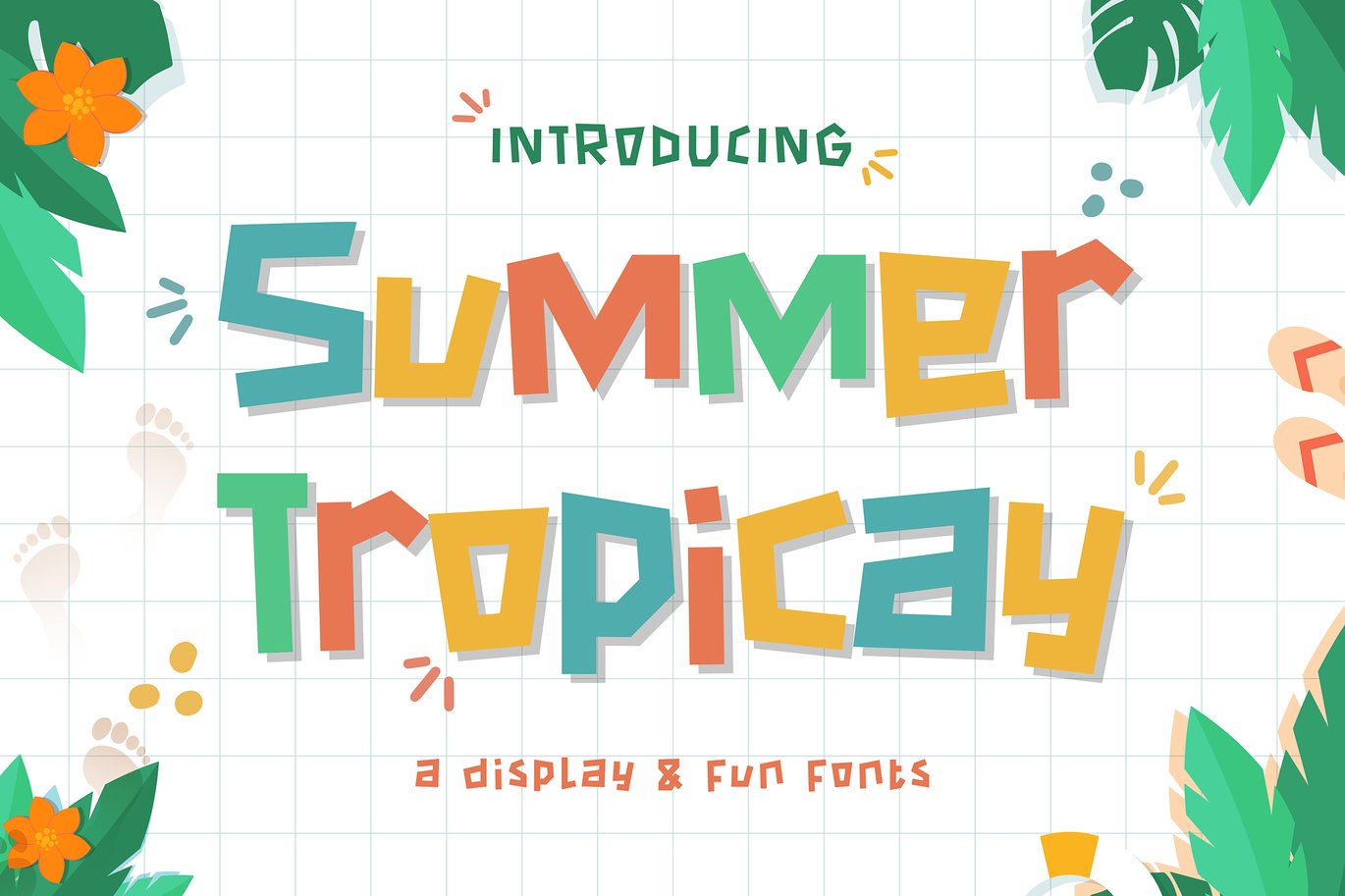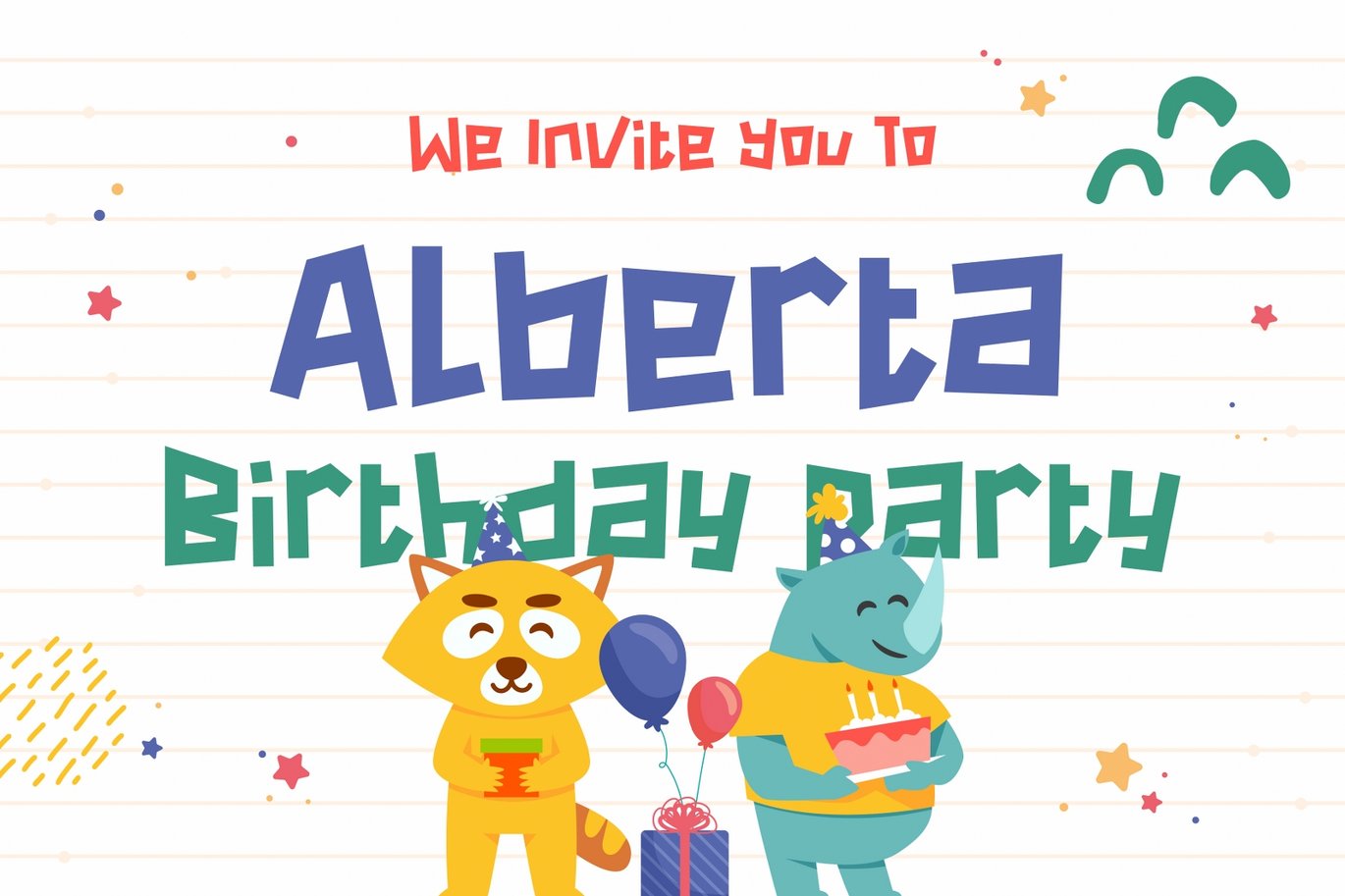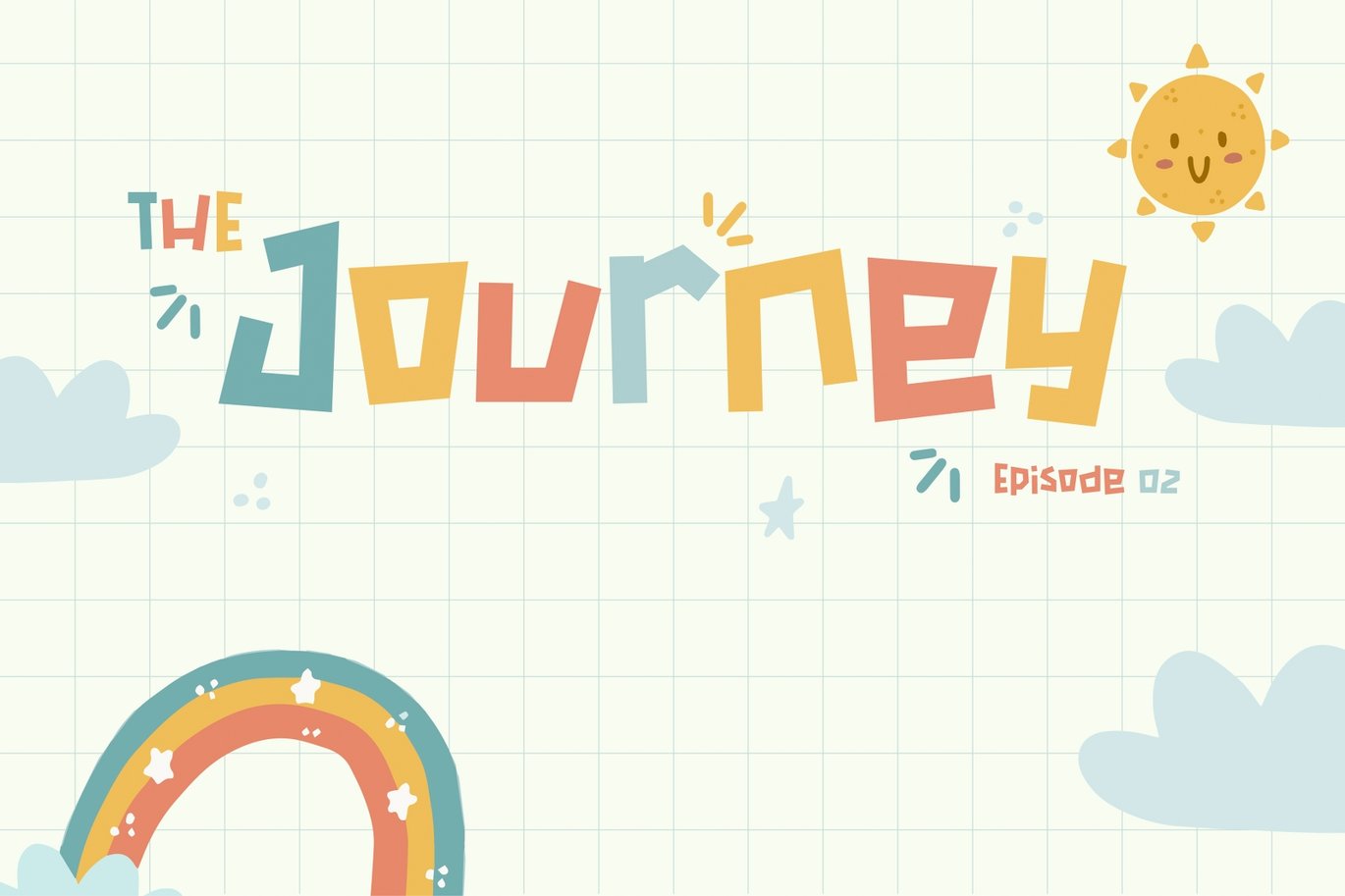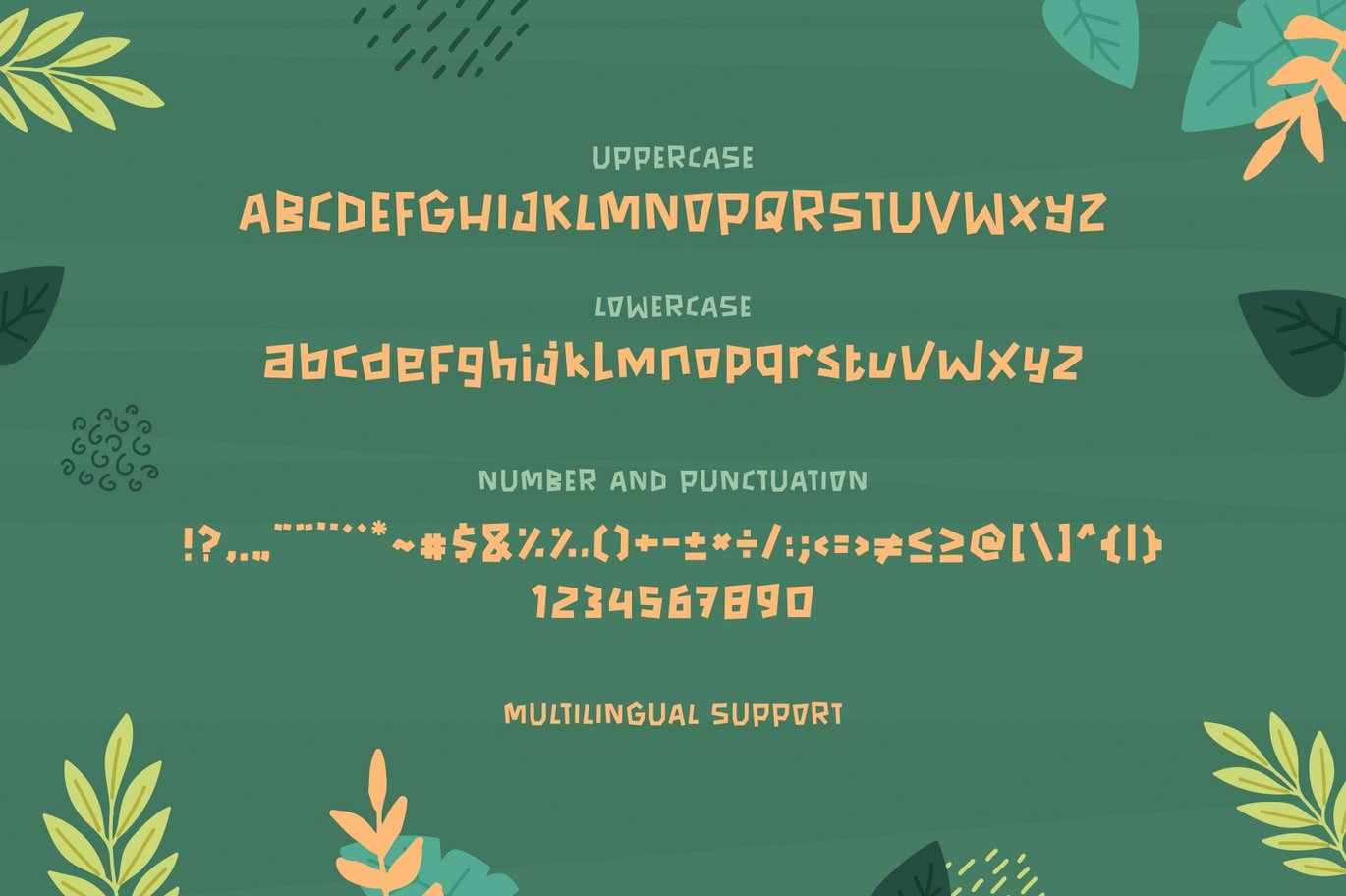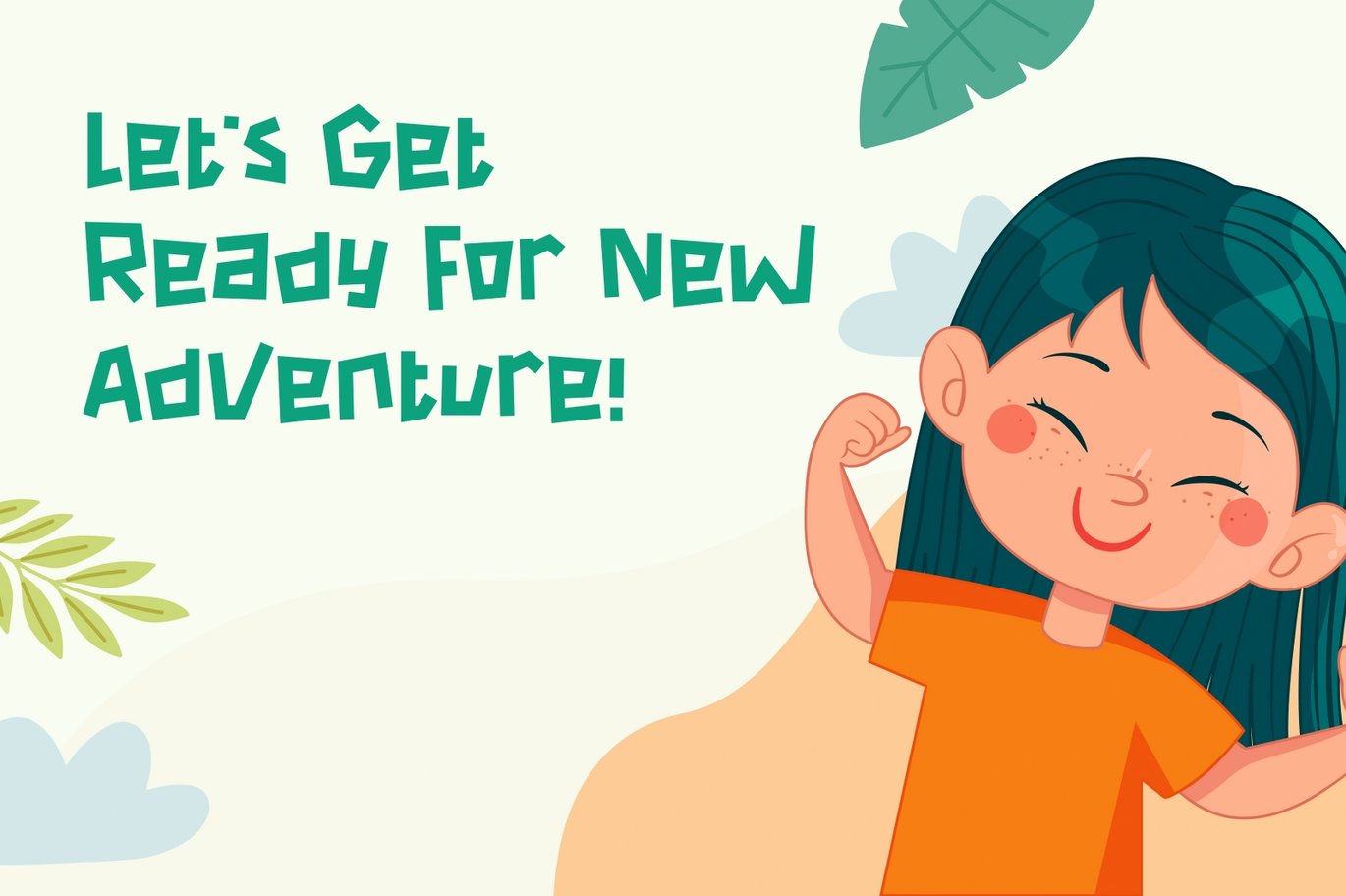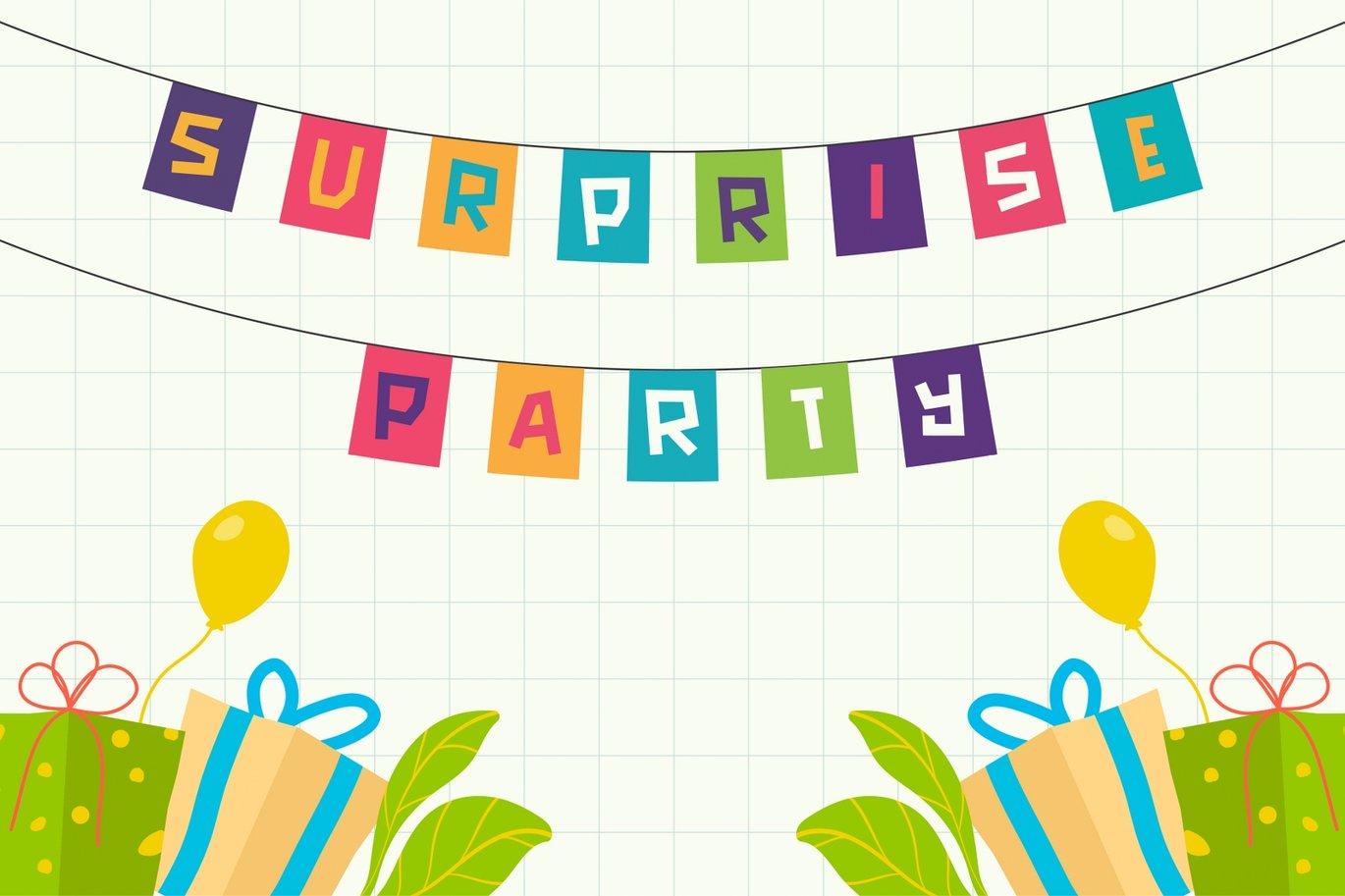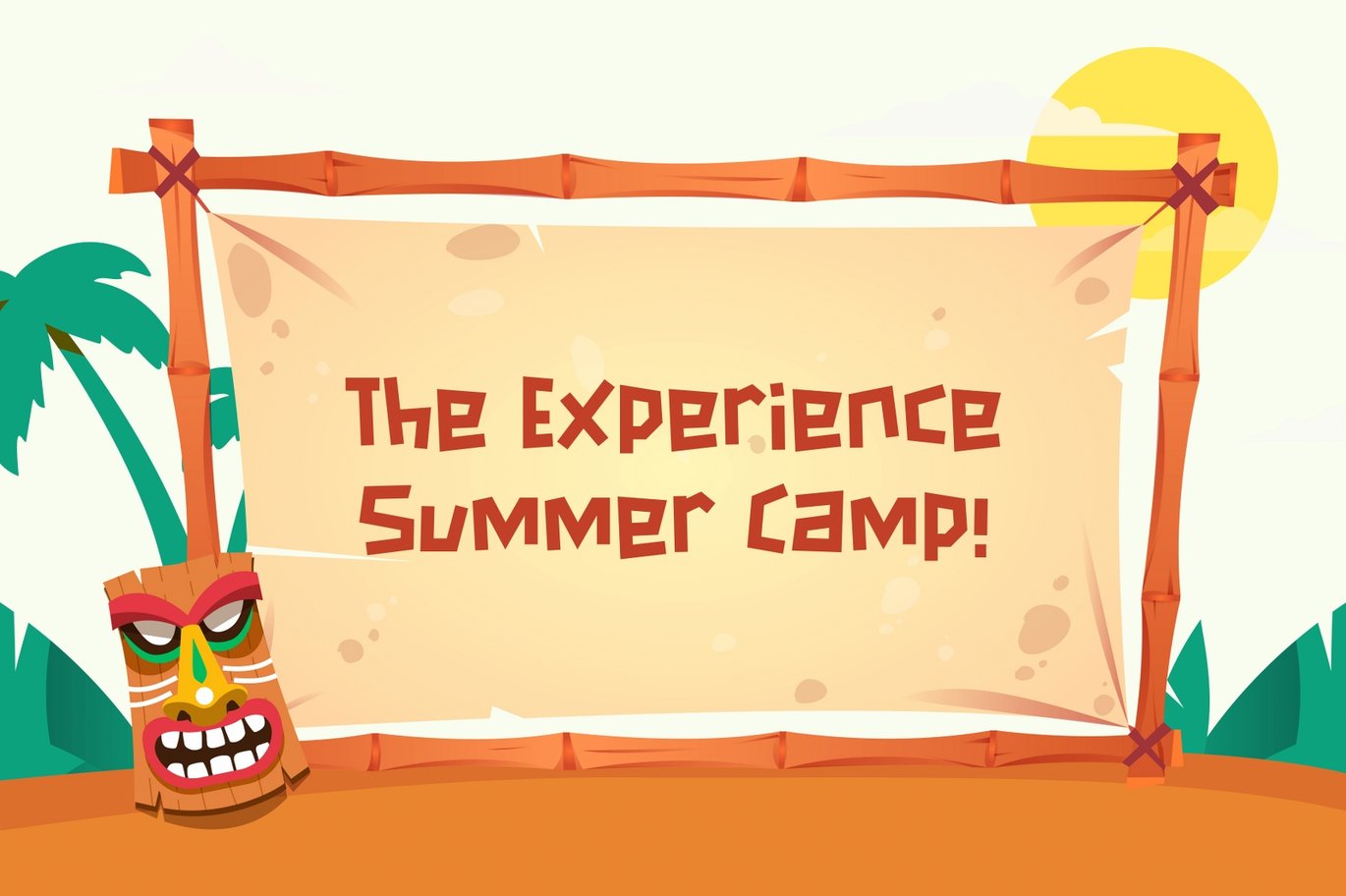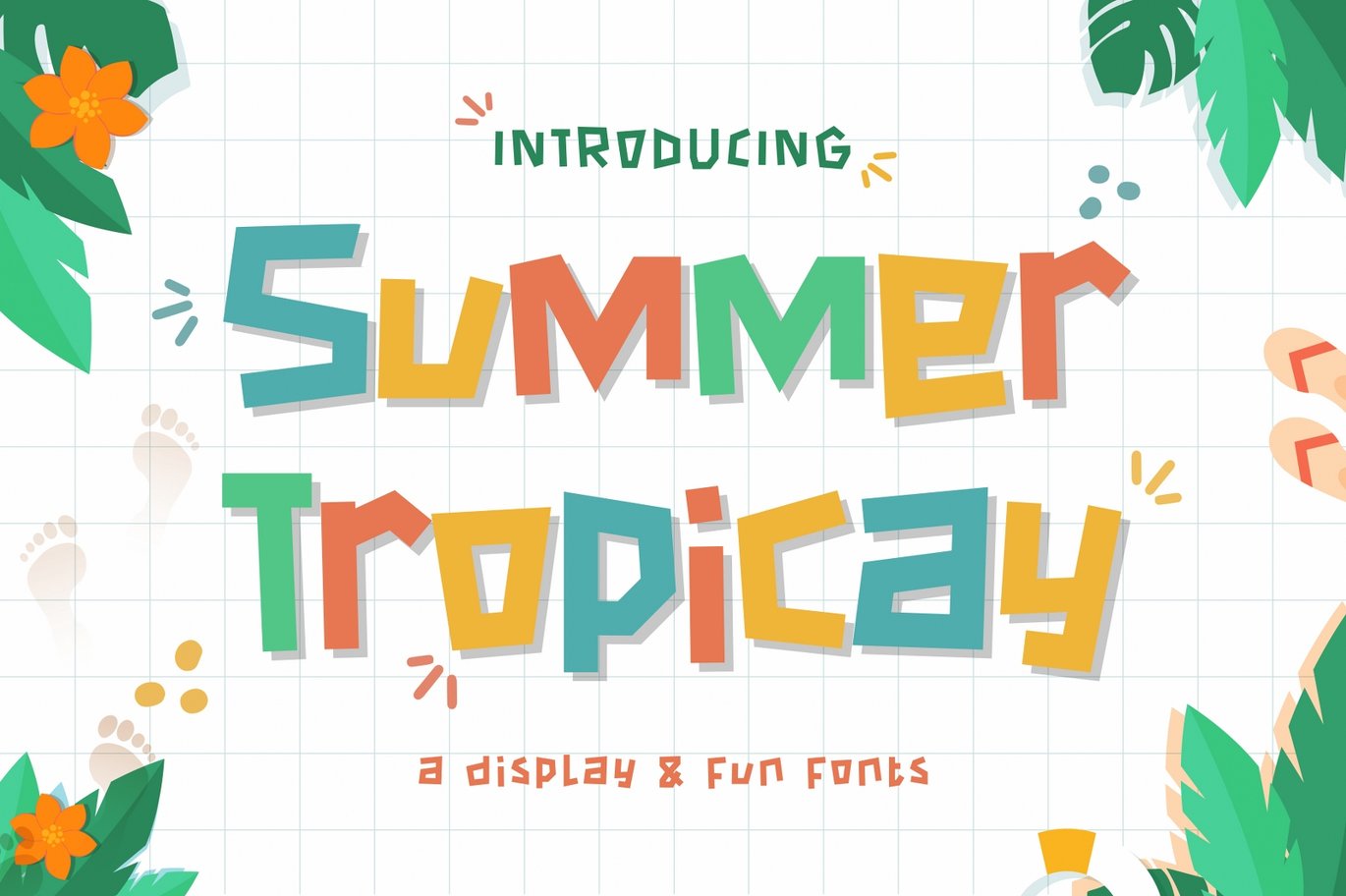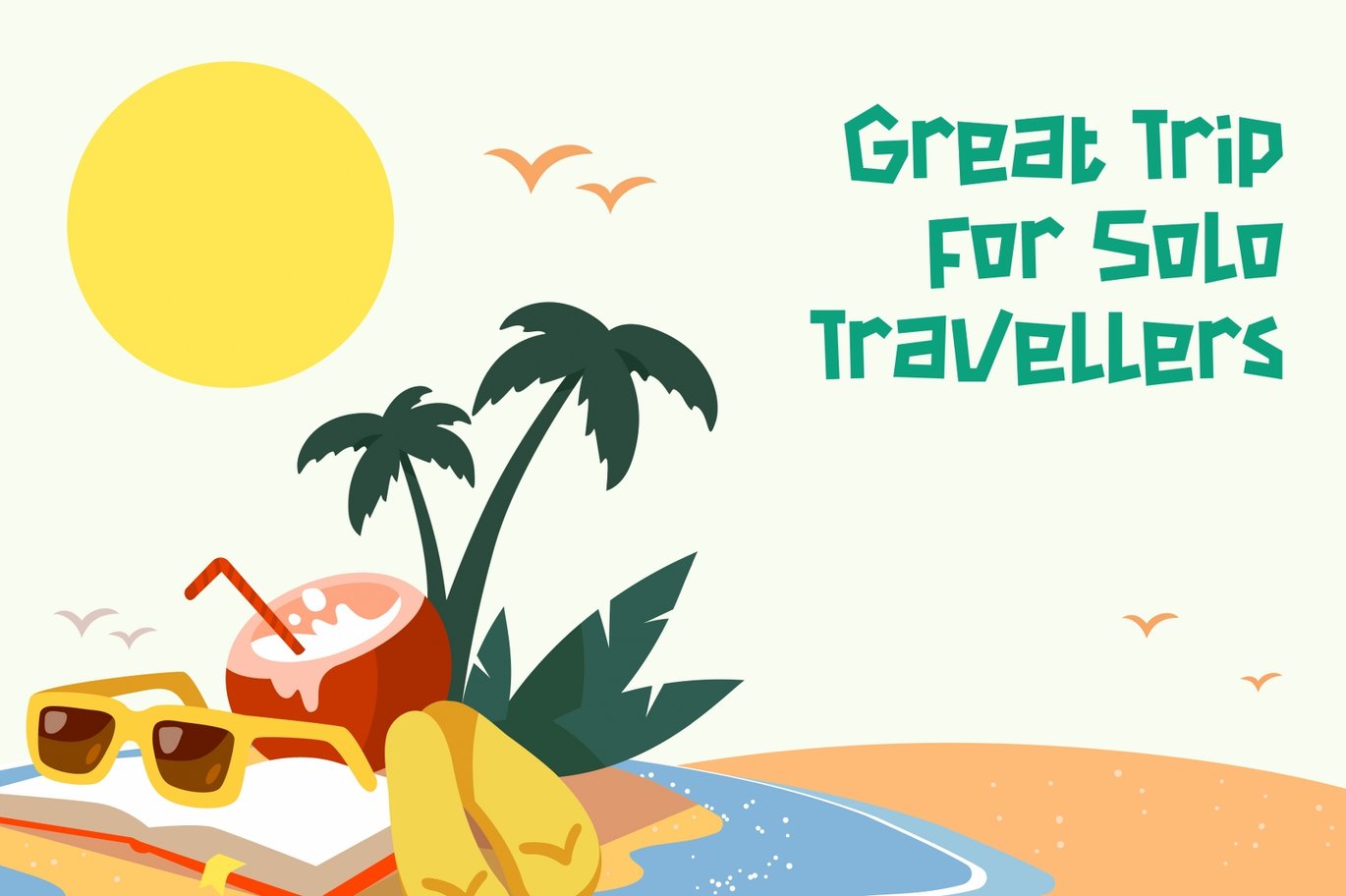
Summer Tropica – Playful Font
a super fun and playful hand-lettered bold typeface. It is perfect for headings, flyers, greeting cards, product packaging, book cover, printed quotes, logotype, apparel designs, album covers, etc. it has 2 styles, regular and rounded. The lower caps look like a regular sans-serif typeface, while the uppercase gives you the cute.
Suit perfectly for Online Games, posters, movie titles, fast food menus, magazines, youtube covers, youtube thumbnails, social media page covers, and so on…